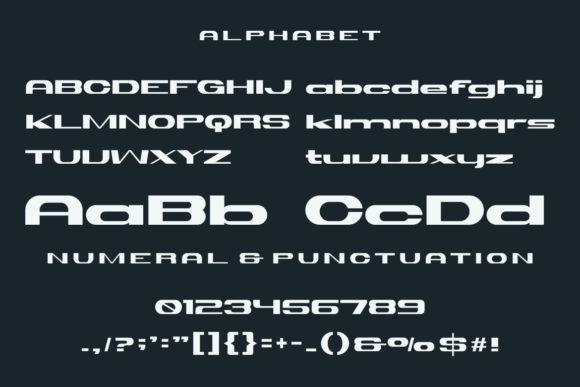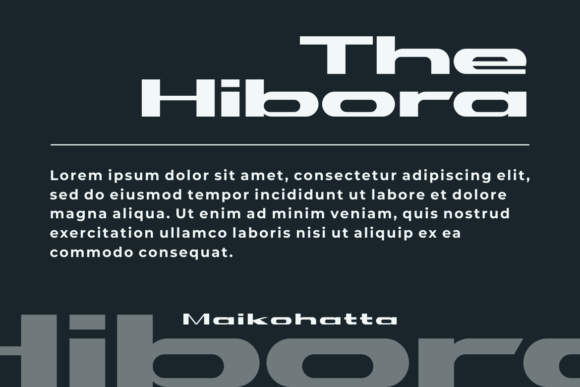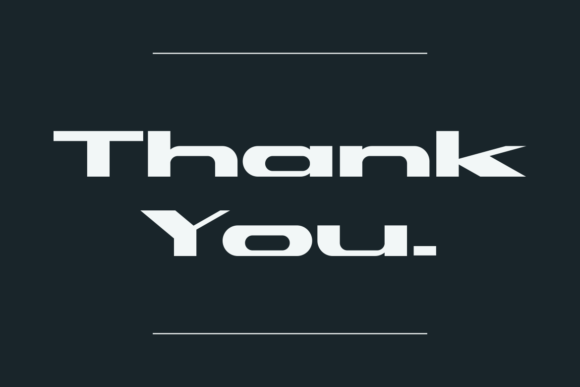
Introduction to Hibora Font
Hibora is a cool and modern sans serif font.
Add it to your projects and you will be amazed by the generated outcome .
Key Features of Hibora Font
Why Choose Hibora Font?
Hibora Font offers exceptional quality and versatility, making it a valuable addition to your design toolkit. Whether you’re creating for personal projects or commercial use, Hibora Font delivers professional results.